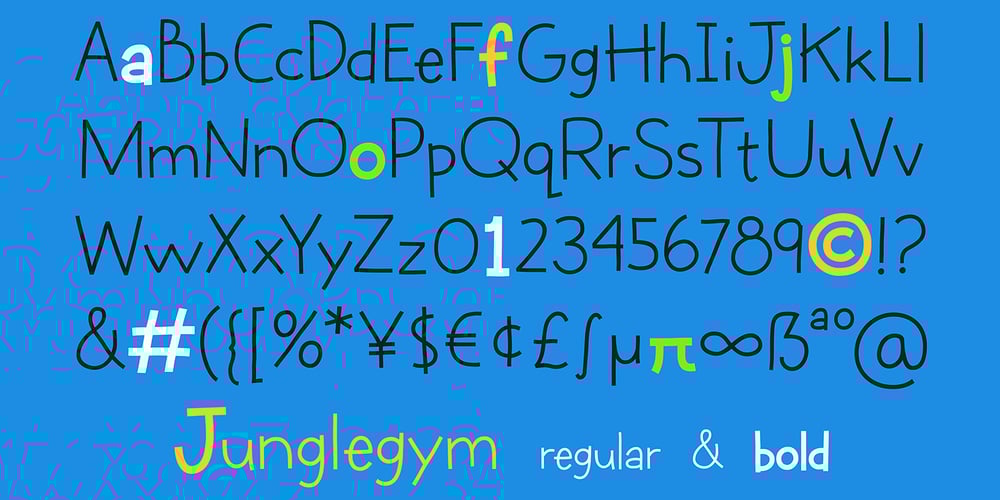
Junglegym Font Family was designed by Amy Dietrich and published by Atlantic Fonts. Junglegym contains 2 styles and family package options. Junglegym provides a playful structure for an energetic project. Climb on and see what you can do! Junglegym family includes regular and bold and ensures extra movement with discretionary ligatures, including double letters and a handful of others to keep play lively.